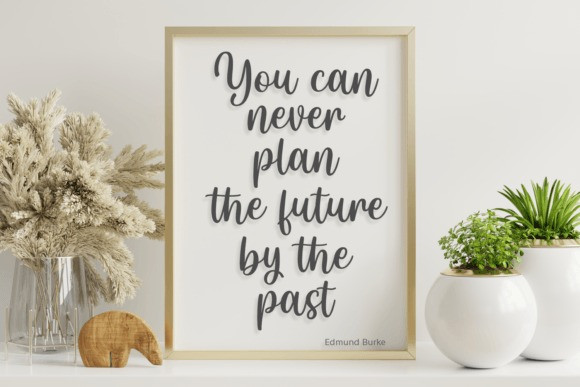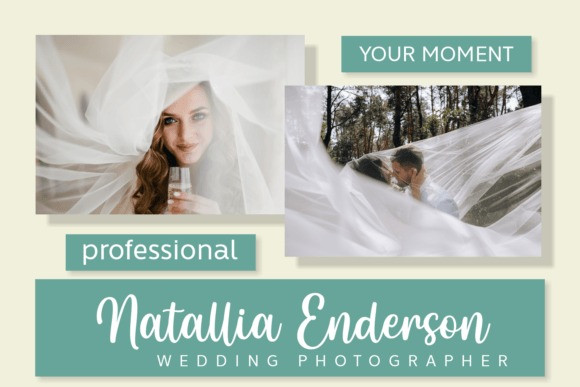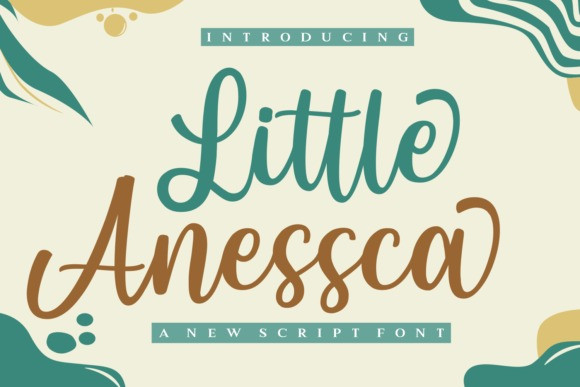
Little Anessca Font
Little Anessca Font is a charming script font with a playful and whimsical feel. Its unique letterforms and uneven strokes create a sense of creativity and individuality, making it perfect for children’s books, packaging, and designs that require a touch of fun and personality.